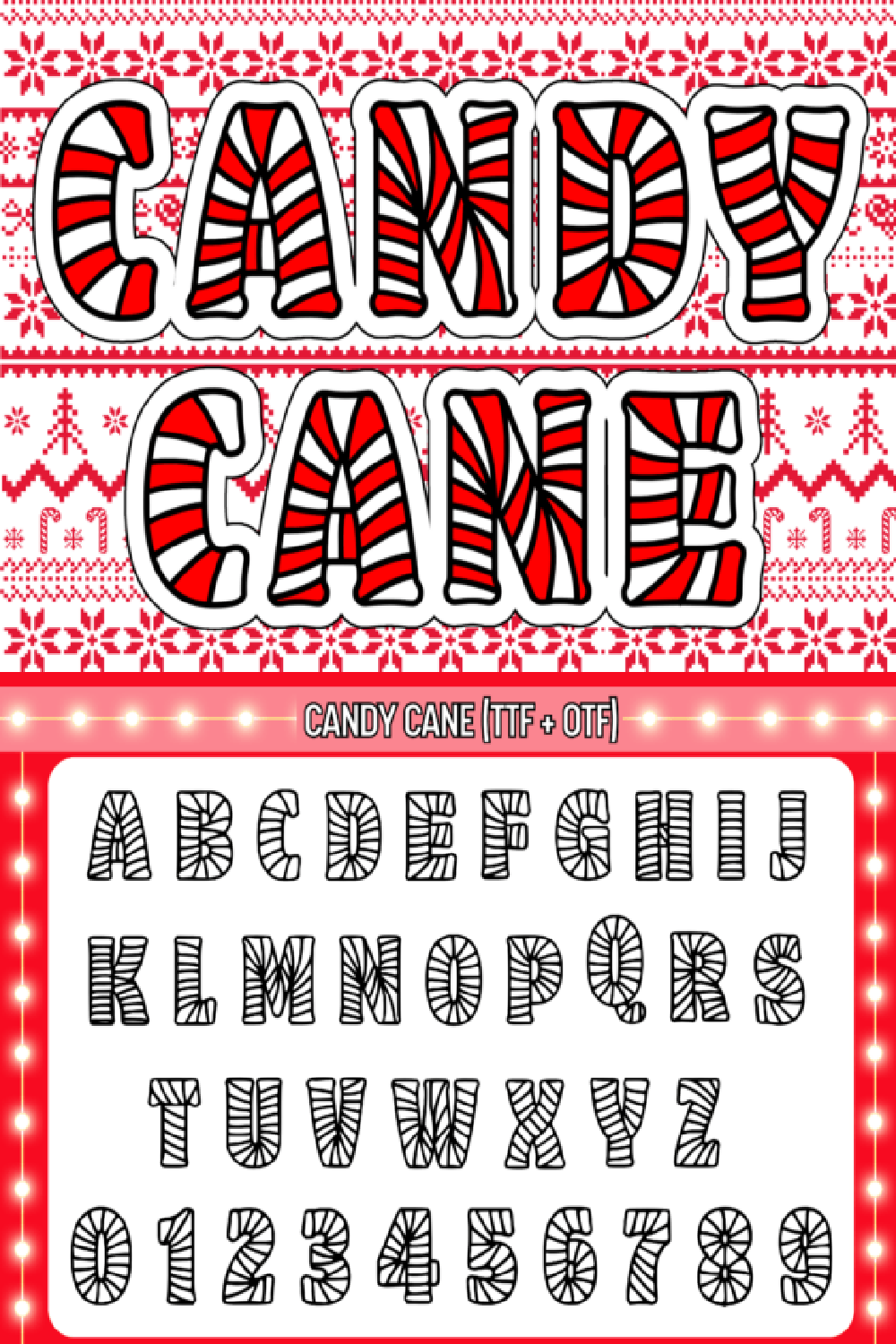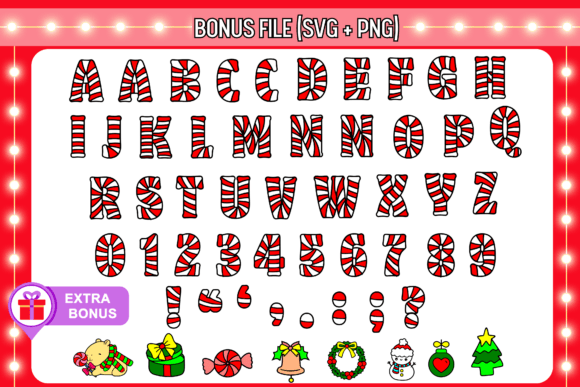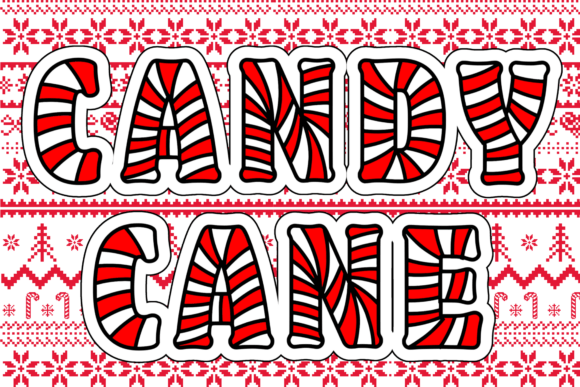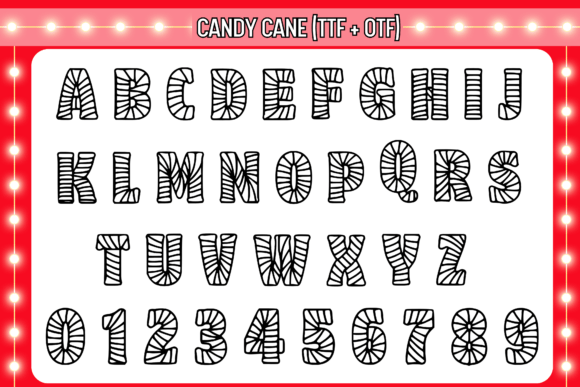
Candy Cane Font: A Cute Christmas Display Font for Cricut & DIY Projects
About the Candy Cane Font
Meet Candy Cane Font, a stunning font that brings a touch of elegance and professionalism to any design. Candy Cane is a fun decorative font that looks like real candy canes. Each letter has a red and white striped pattern, just like a candy cane! The font also comes with colorful PNG files, so you can use the letters with bright colors in your designs. It’s perfect for holiday projects or anything that needs a sweet, festive touch!
Candy Cane Font’s playful design is ideal for short headlines, festive packaging, and eye-catching posters. Its decorative nature makes it unsuitable for body text or UI elements where readability is paramount. Avoid using it in lengthy paragraphs or for applications requiring small sizes.
The font’s inherently cheerful personality pairs well with clean sans-serif fonts like Open Sans for a balanced contrast, or a more playful script font like Pacifico for a heightened sense of whimsy. For a sophisticated yet festive feel, consider pairing it with a slightly more formal serif such as Merriweather.
Its strong visual identity makes it a perfect fit for brands targeting a youthful audience or products with a sweet, celebratory theme, such as confectionery or holiday-themed items.